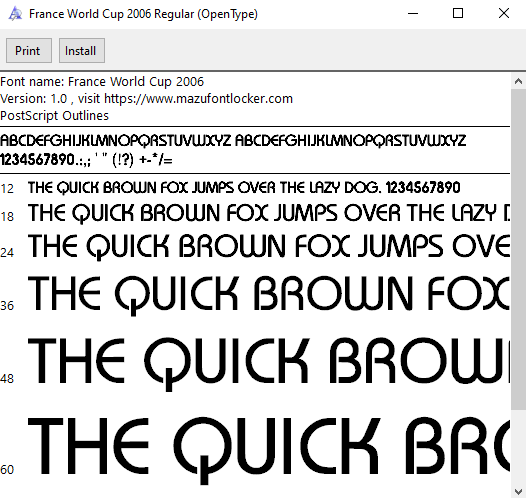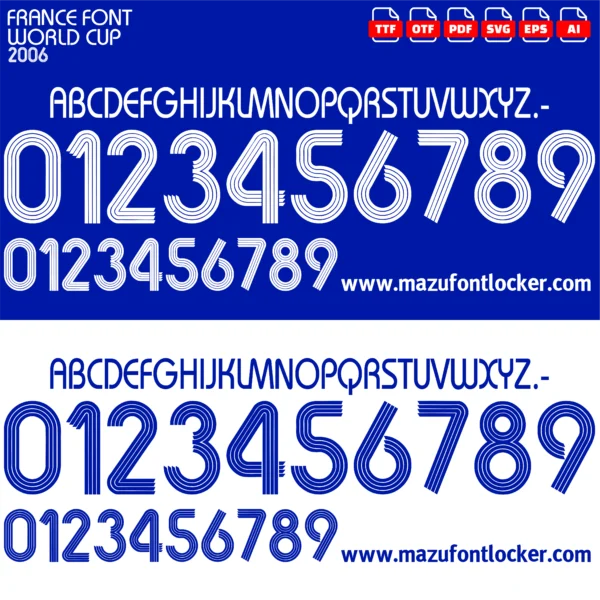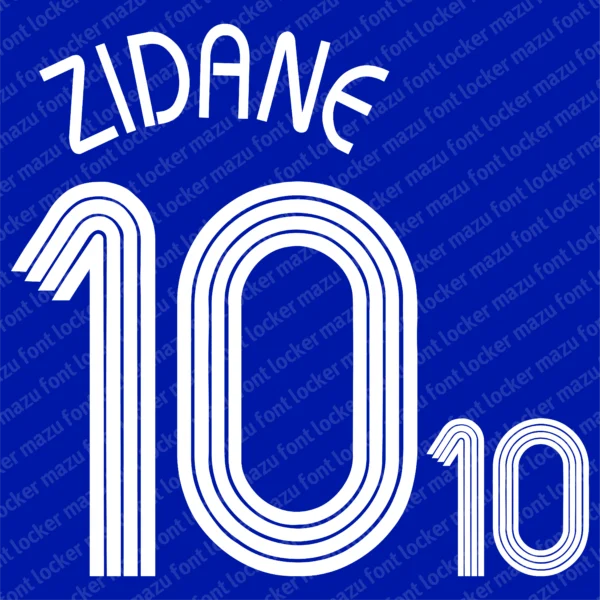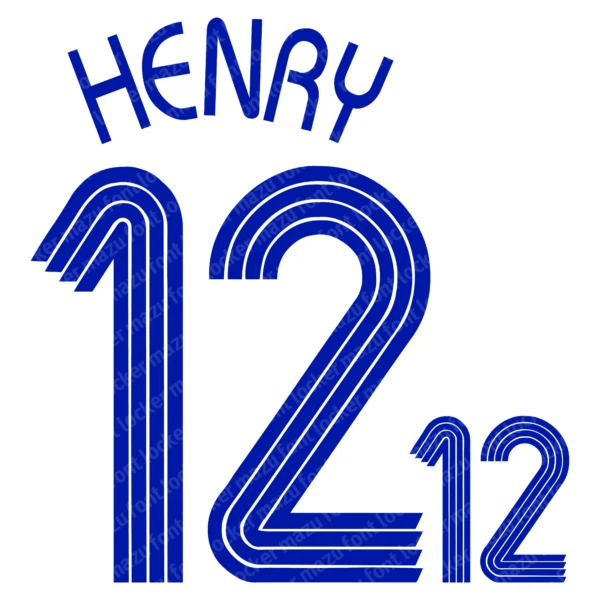
France World Cup 2006 Font Vector – Epic Les Bleus Masterpiece
Download the France World Cup 2006 Font Vector (AI, EPS, SVG, PDF, OTF, TTF) and unleash the elegant yet lethal, razor-sharp, thunderously stylish, and explosively technical match typography that defines France’s 2006 World Cup campaign as they stride onto the pitch with clinical precision, unbreakable mental steel, fearless Gallic flair, and pure Les Bleus mentality.
This font captures the commanding, deep-blue, lightning-strike, and precision-engineered lettering that perfectly embodies France’s iconic national identity, proud French football heritage, legendary blue-white-red tradition, warrior-artist spirit, and unstoppable World Cup power — delivering unmatched authenticity, premium quality, explosive energy, and elite FIFA World Cup competition intensity for professional jersey mockups, dynamic football graphics, premium sports branding, passionate fan creations, and high-end design projects.
France World Cup 2006 Font Vector – Stunning Les Bleus Blue & White Typeface
The France World Cup 2006 Font Vector is a premium typeface that accurately recreates the distinctive match lettering associated with the France national team during the 2006 FIFA World Cup. This high-quality vector font kit captures the bold, clean, and instantly recognizable typography that perfectly complements the team’s iconic blue, white, and red identity.
Designed for professional designers, football enthusiasts, jersey collectors, and passionate Les Bleus supporters, the France World Cup 2006 Font Vector delivers exceptional authenticity for creating realistic jersey mockups, football merchandise, social media graphics, match posters, squad designs, and custom fan artwork. Every character has been carefully recreated to reflect the powerful and precise visual style of one of world football’s most iconic national teams.
Why Choose France World Cup 2006 Font Vector
This font stands out thanks to its precise vector construction and authentic team-inspired styling. Every letter and numeral has been meticulously recreated to match the distinctive football lettering aesthetic associated with France during the 2006 FIFA World Cup and its historic run to the final.
Whether you’re producing professional football kit templates, custom jersey concepts, or eye-catching football content, the France World Cup 2006 Font Vector delivers a genuine match-ready appearance inspired by the identity of Les Bleus.
The lettering featured in the France World Cup 2006 Font Vector combines clean geometric lines with bold modern proportions. The result is a premium and highly readable typeface that reflects France’s proud football heritage, iconic blue kit colors, national identity, and passionate global fanbase.
• Complete uppercase A–Z alphabet and numbers 0–9 in authentic France World Cup 2006 inspired style
Wearing their iconic blue, white, and red colors, the French team continued to represent a proud football tradition built on elegance, fighting spirit, and a passionate connection with supporters across France and around the world.
The France World Cup 2006 Font Vector is inspired by the distinctive football typography and visual identity associated with this campaign, making it an excellent choice for designers creating custom jersey concepts, football posters, squad graphics, matchday artwork, and fan-made projects. For official team information, news, and updates, visit the official French Football Federation website.